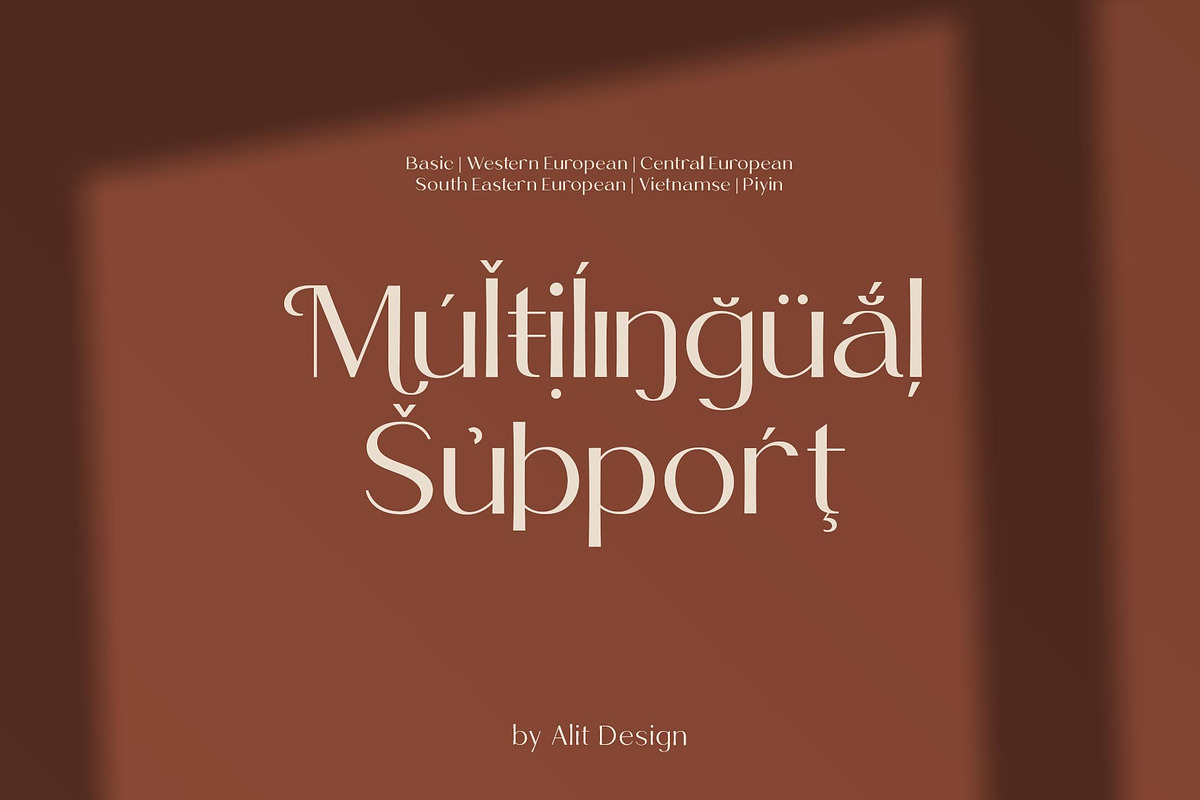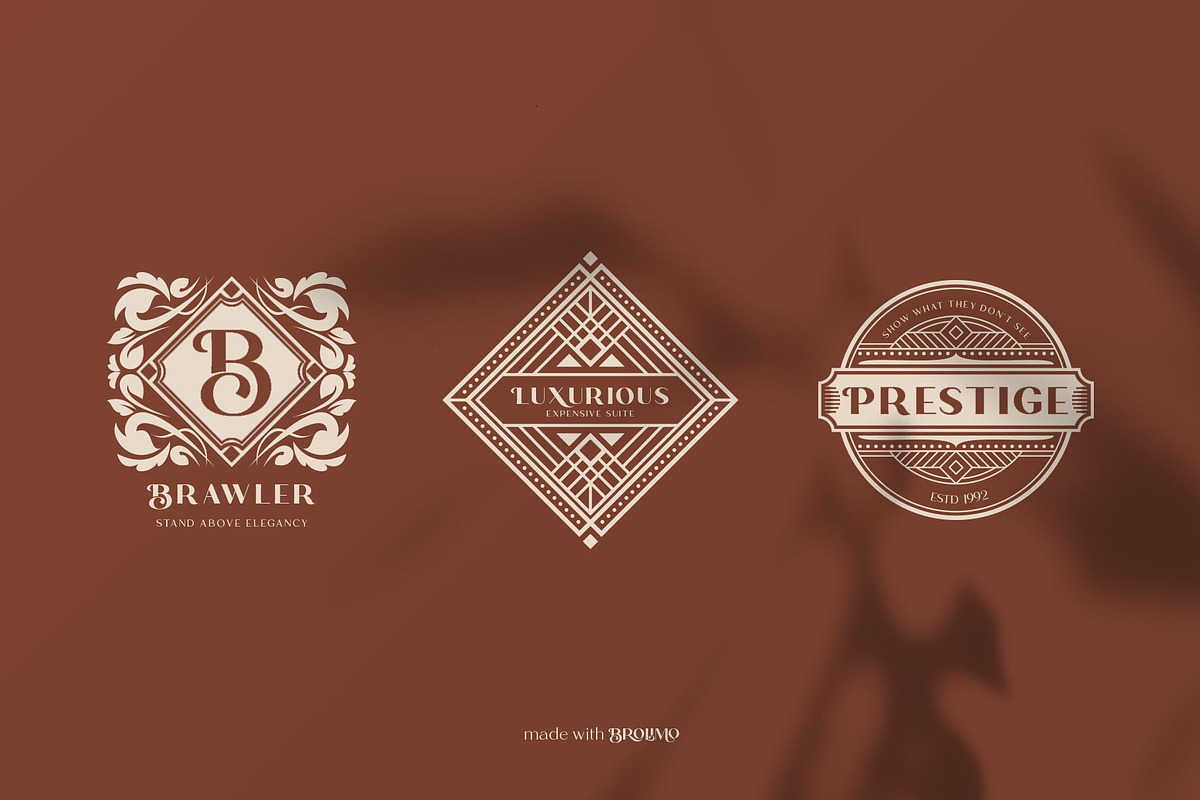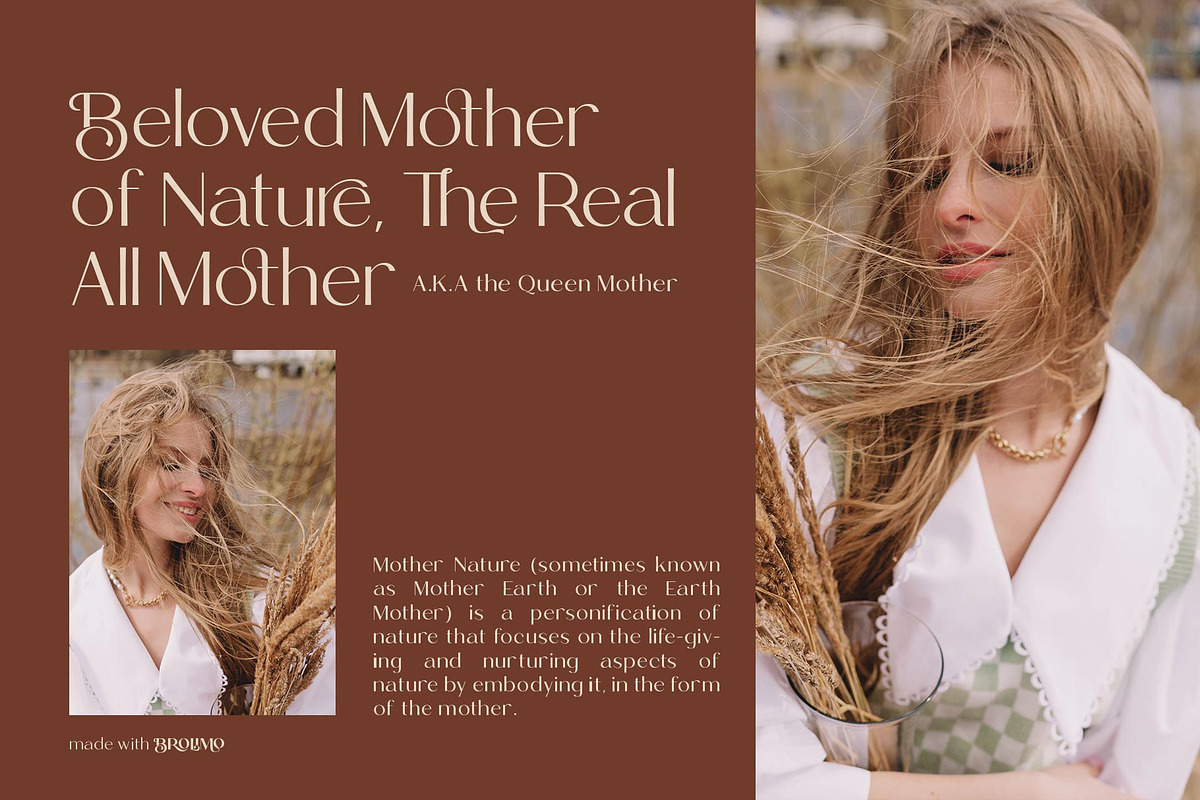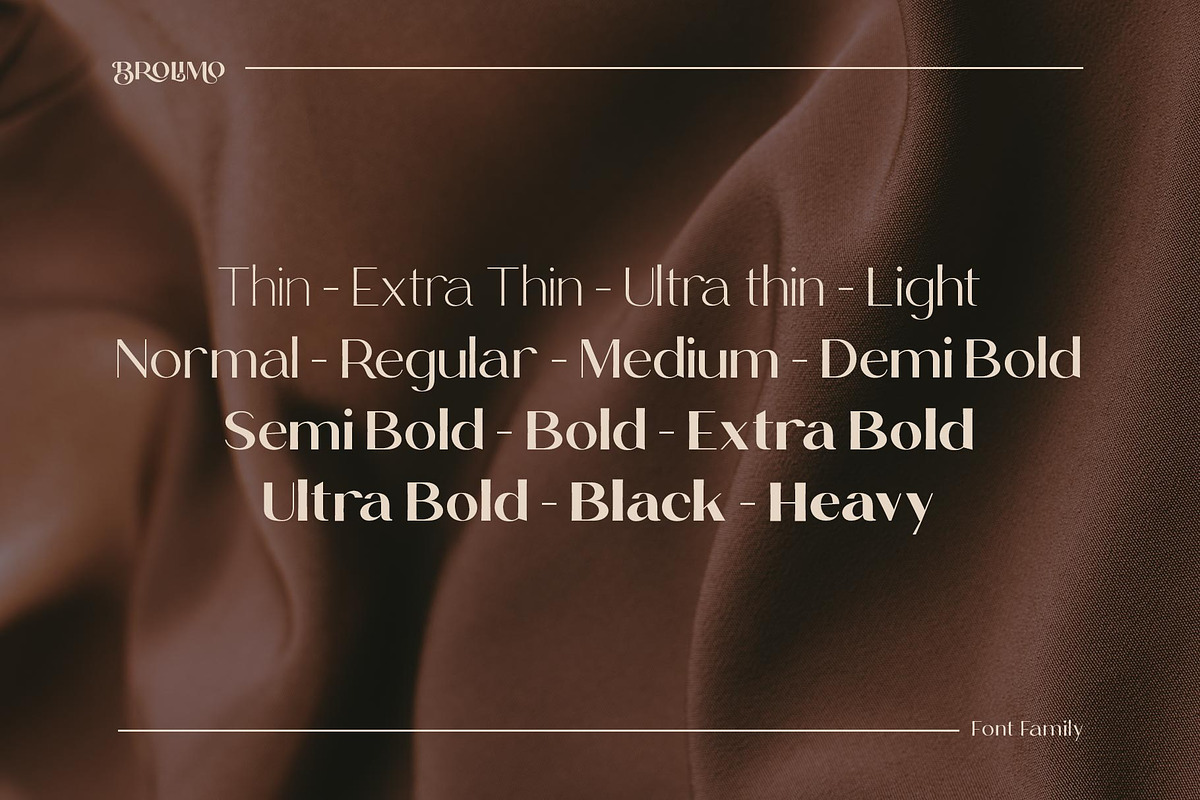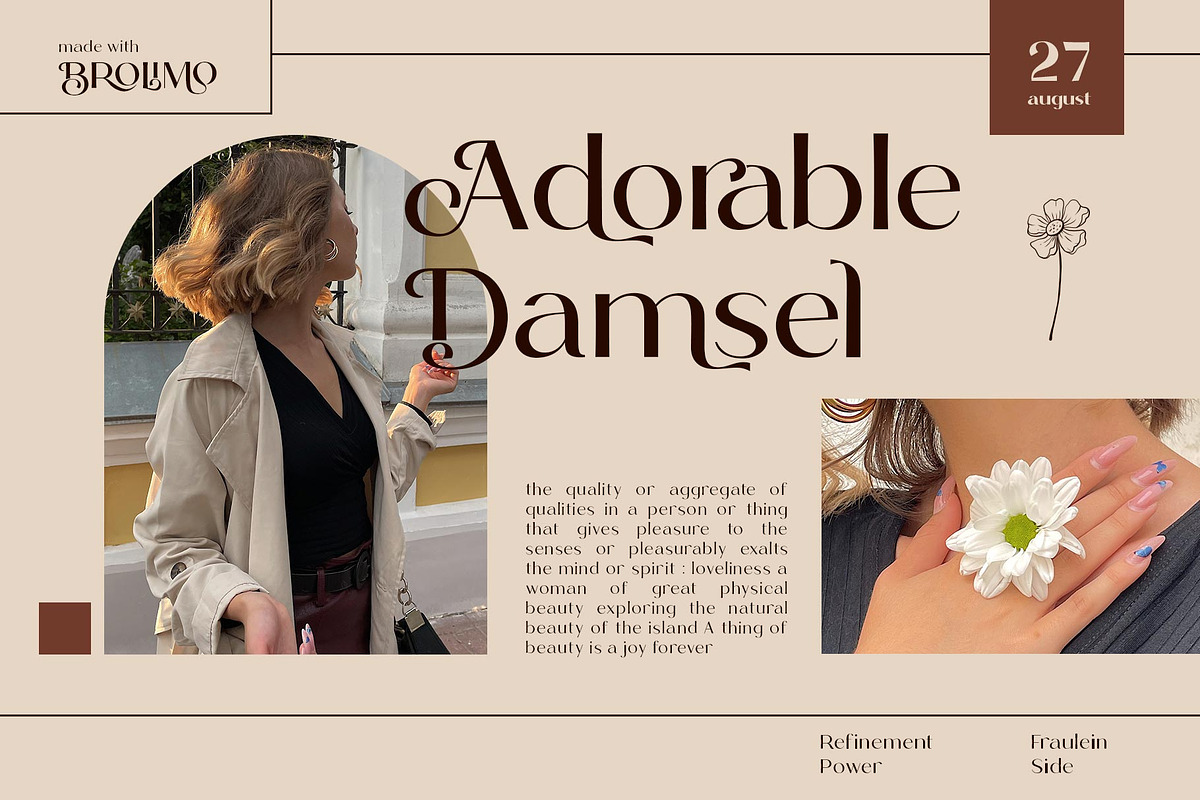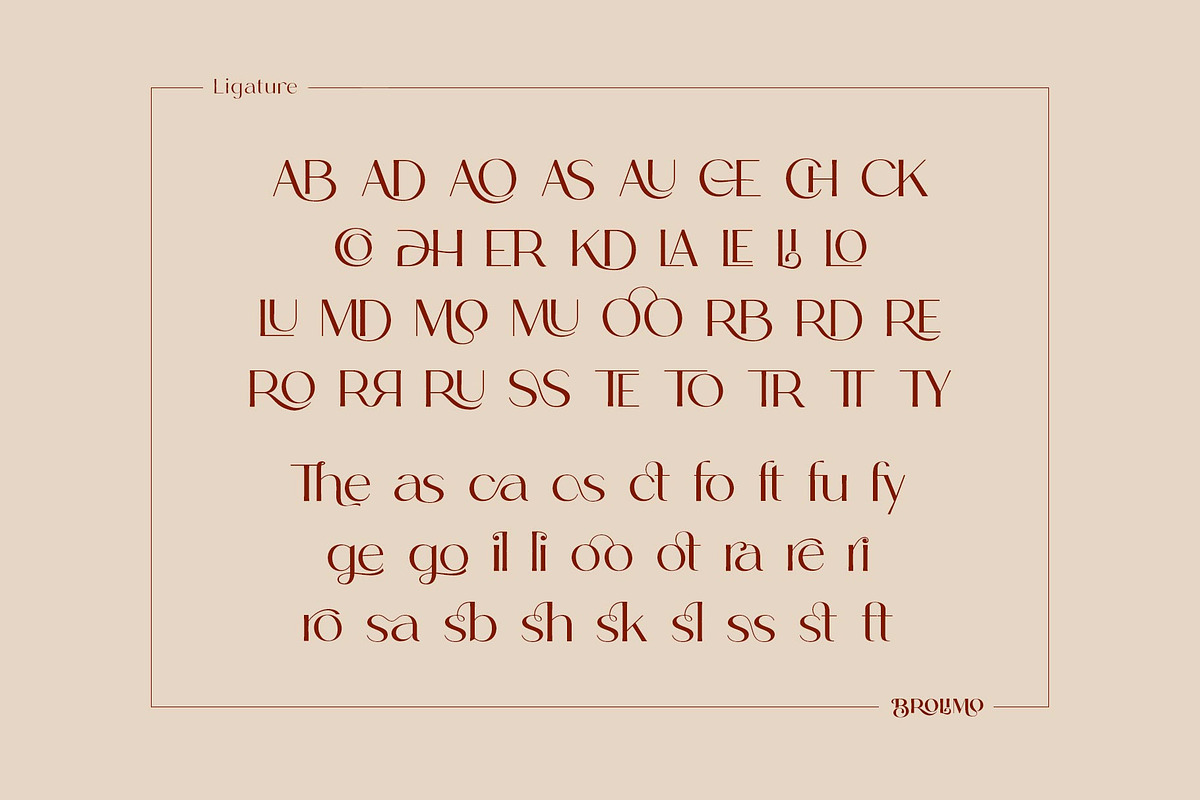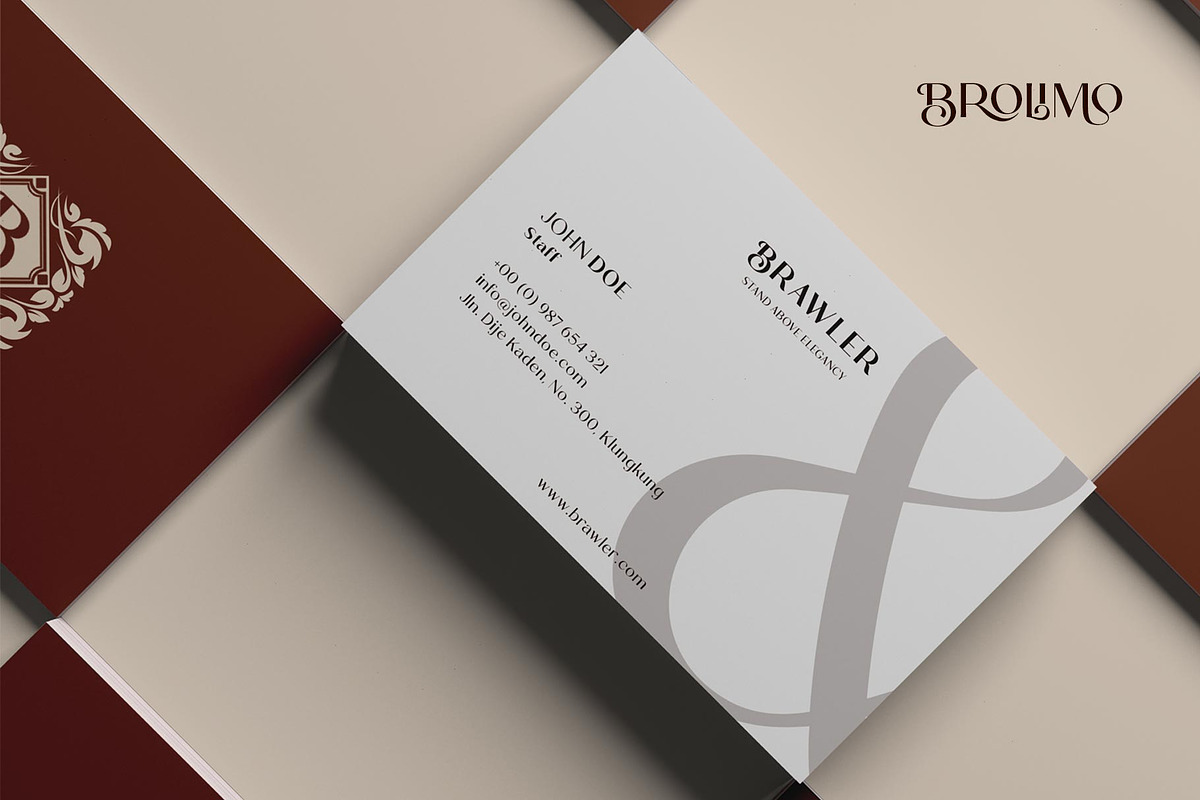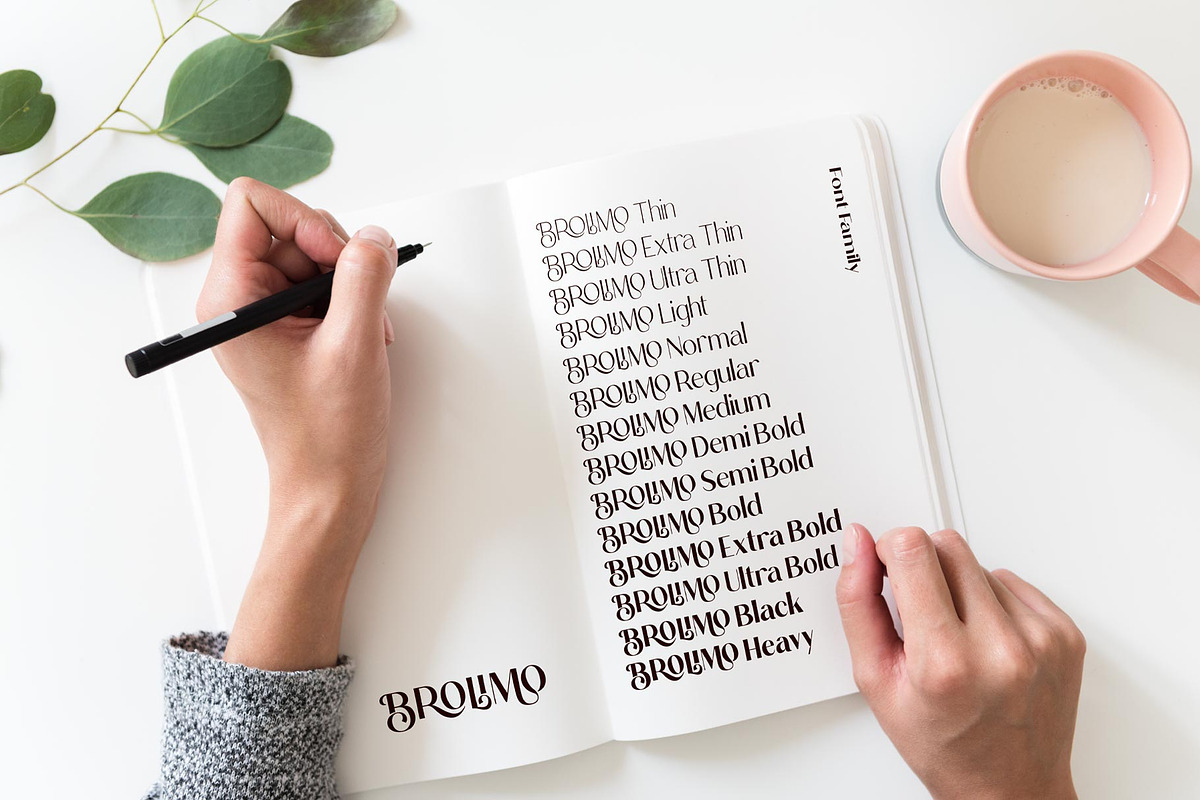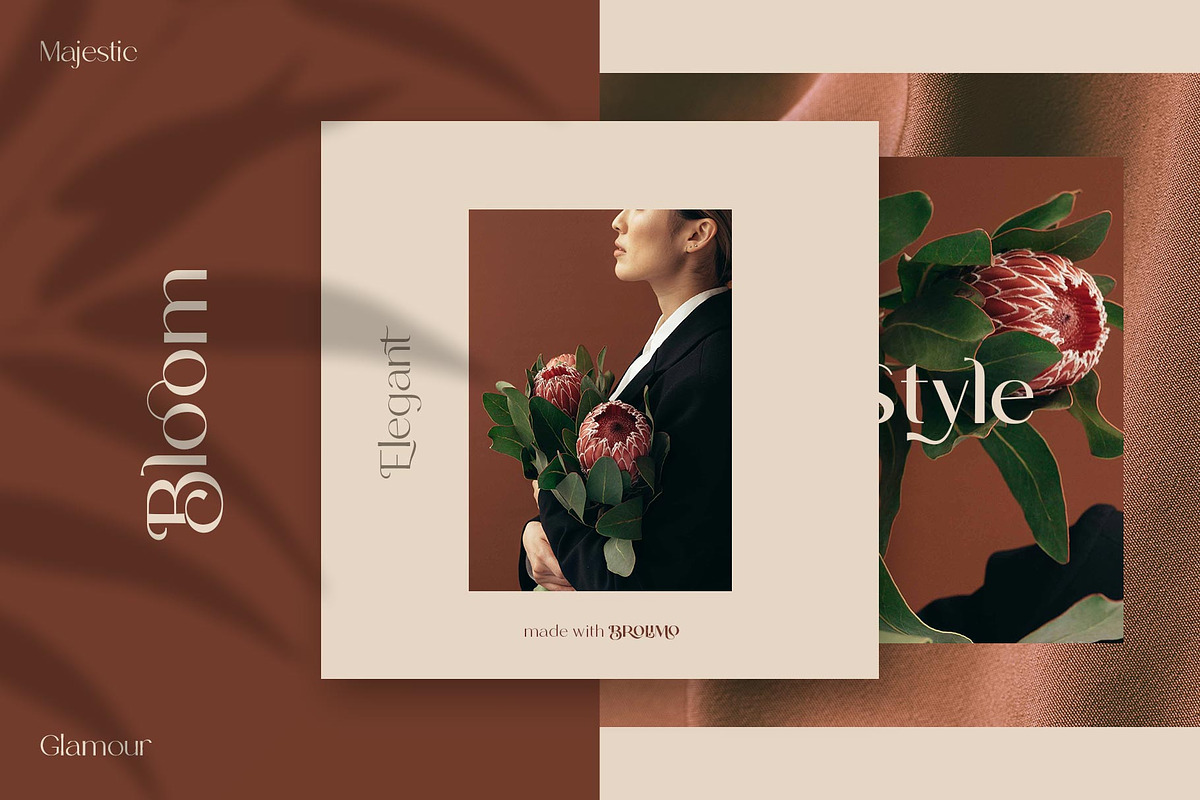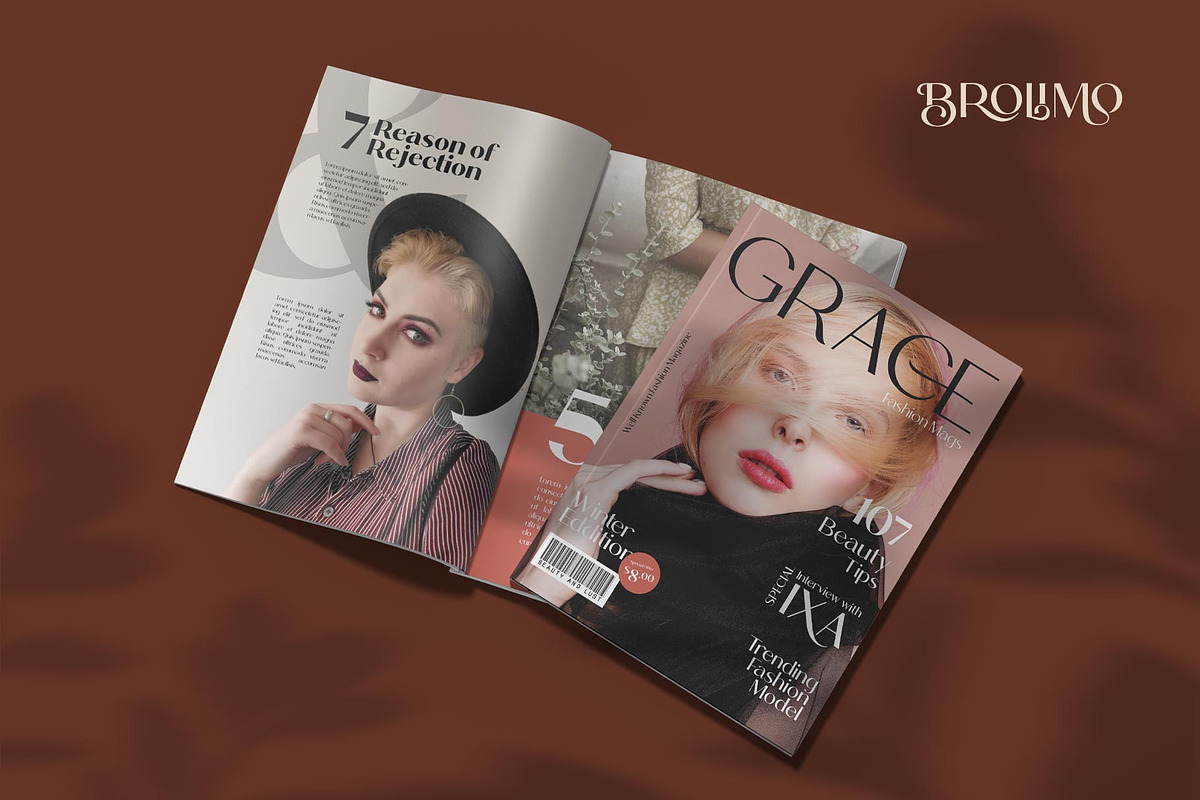
Brolimo Typeface
Introducing Brolimo Typeface
BROLIMO font family consists of 14 families, from Thin to Heavy style. The elegant modern font creates a unique design and is sure to steal the eye of the design target audience. Besides being unique, the BROLIMO font also has a luxury simple character that makes the design charming and luxurious.
These a fonts are perfect for designs with the concept of elegant, luxury, romance, fashion and so on.